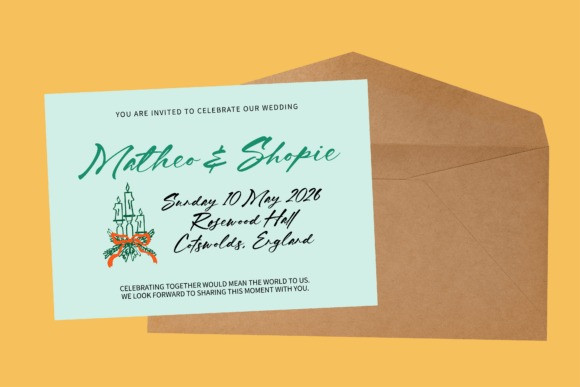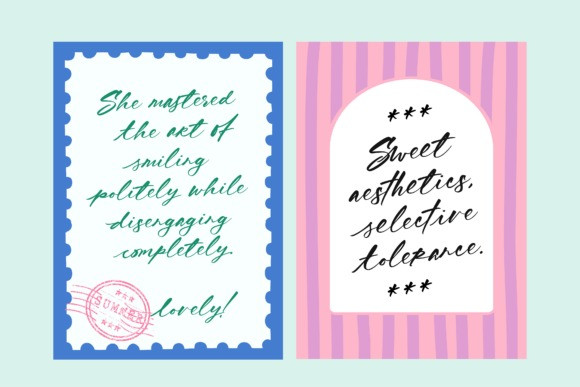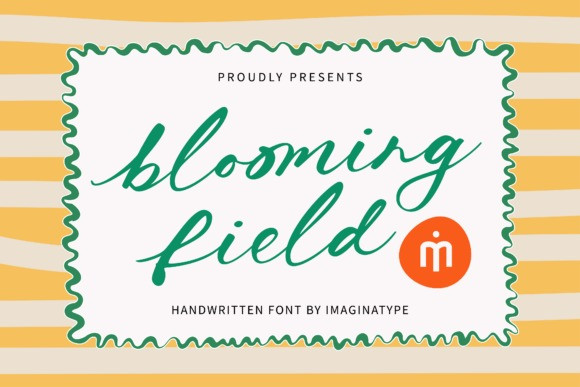
Blooming Field Handwriting Font
Blooming Field Handwriting Font A breezy, organic, and effortlessly charming handwritten script designed to bring the freshness of a spring morning to your canvas.With its fluid strokes and natural rhythm, Blooming Field is more than just a font it’s a personal touch. It captures the soul of a handwritten note, dancing with a gentle, swaying grace that feels deeply authentic. Its dynamic baseline and “perfectly imperfect” edges instantly transform simple text into a masterpiece of rustic elegance.
Whether you’re branding an organic line, crafting whimsical wedding suites, or creating heartfelt social media content, Blooming Field doesn’t just decorate your message it delivers it with a warm, human connection.